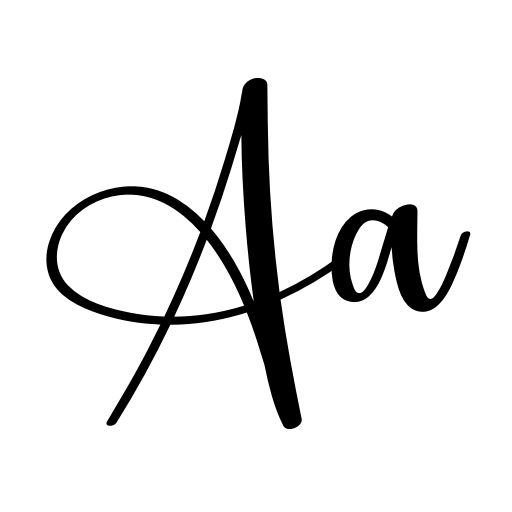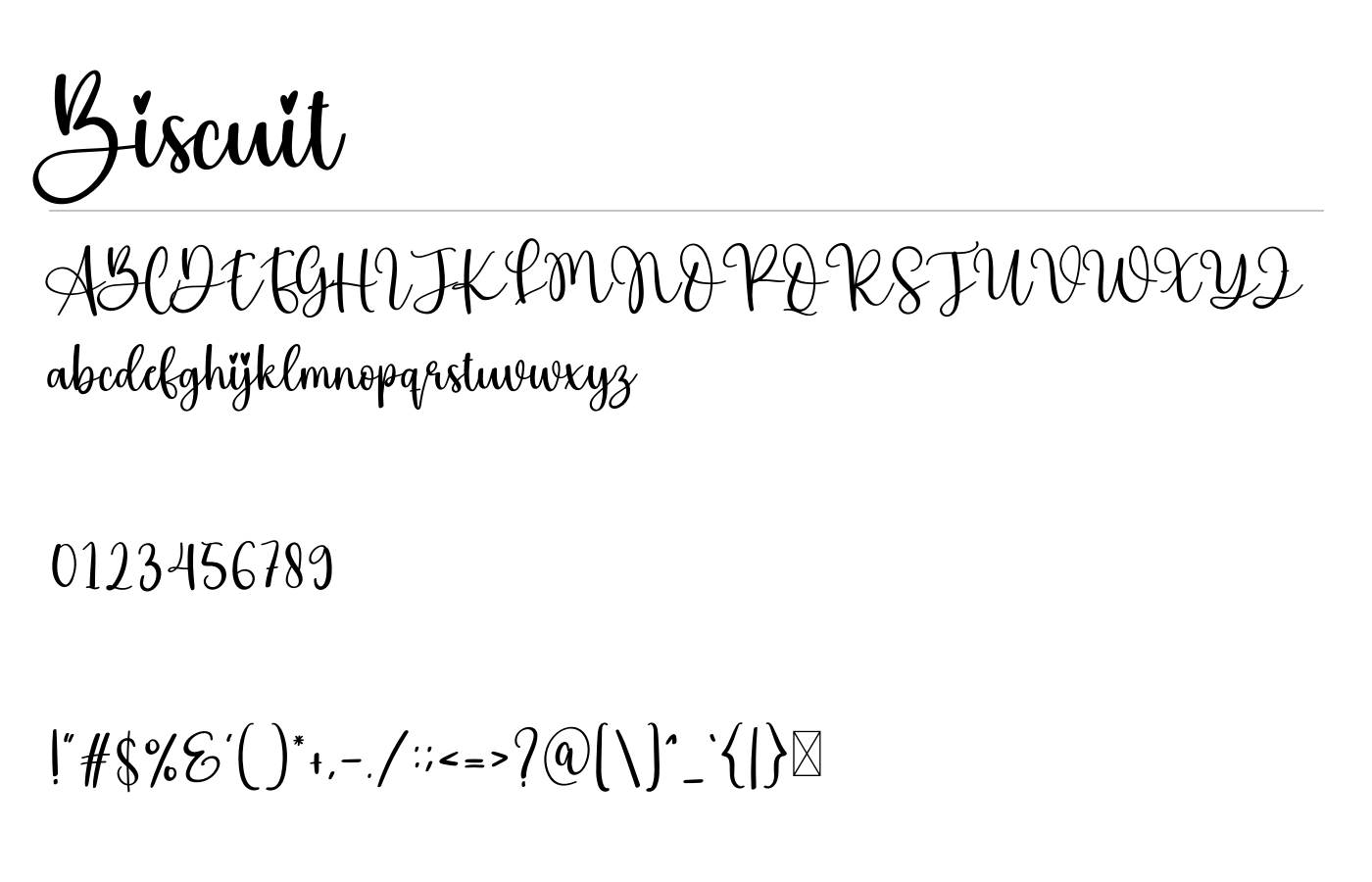
Biscuit is a playful and charming script font with a handwritten feel, featuring smooth, flowing strokes and whimsical heart-shaped dots over the i and j. Its light weight and moderately tall x-height make it perfect for adding a friendly and personal touch to invitations, branding, and social media graphics. This font works best in creative, informal contexts where warmth and individuality are key.
Biscuit Font
About Biscuit Font